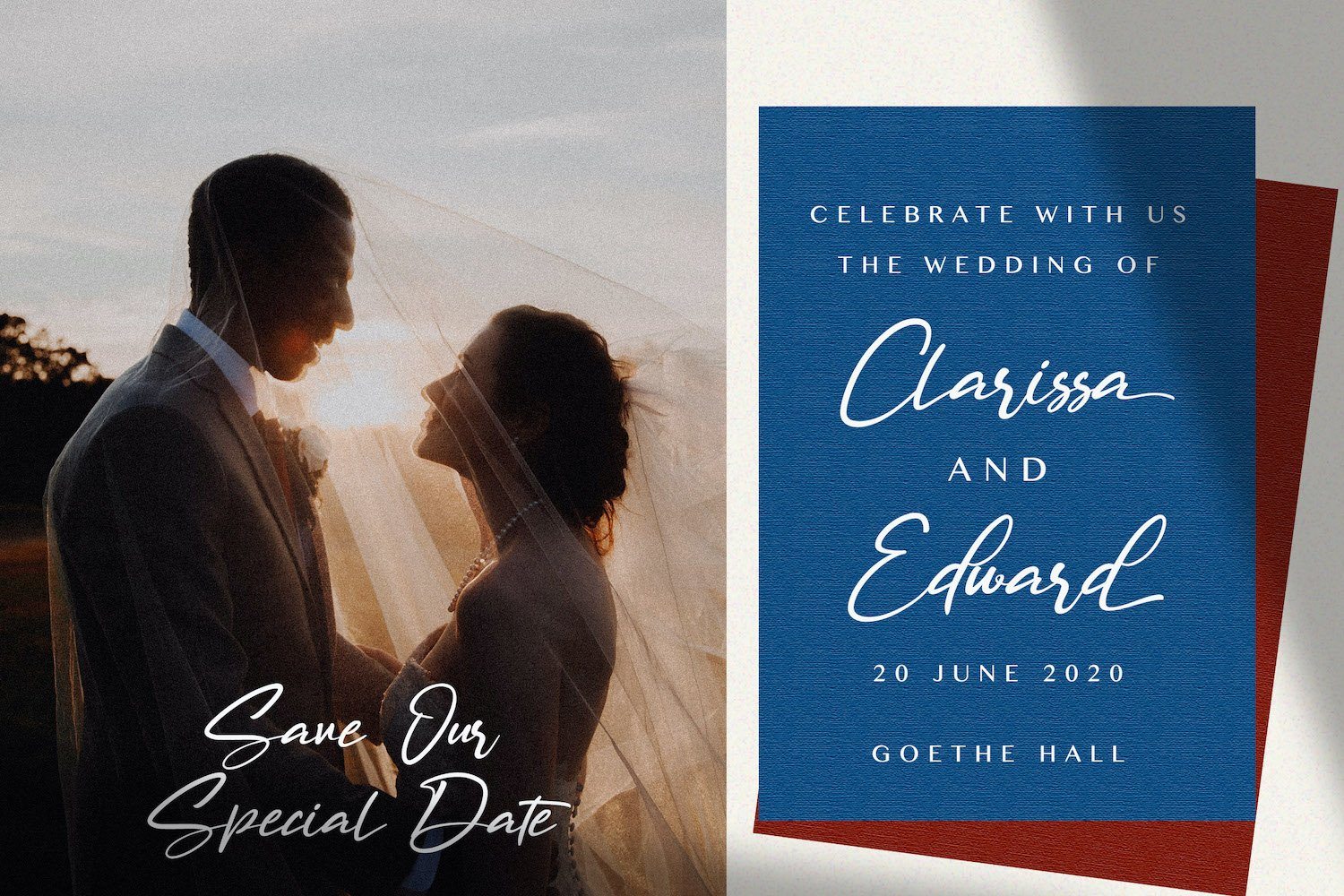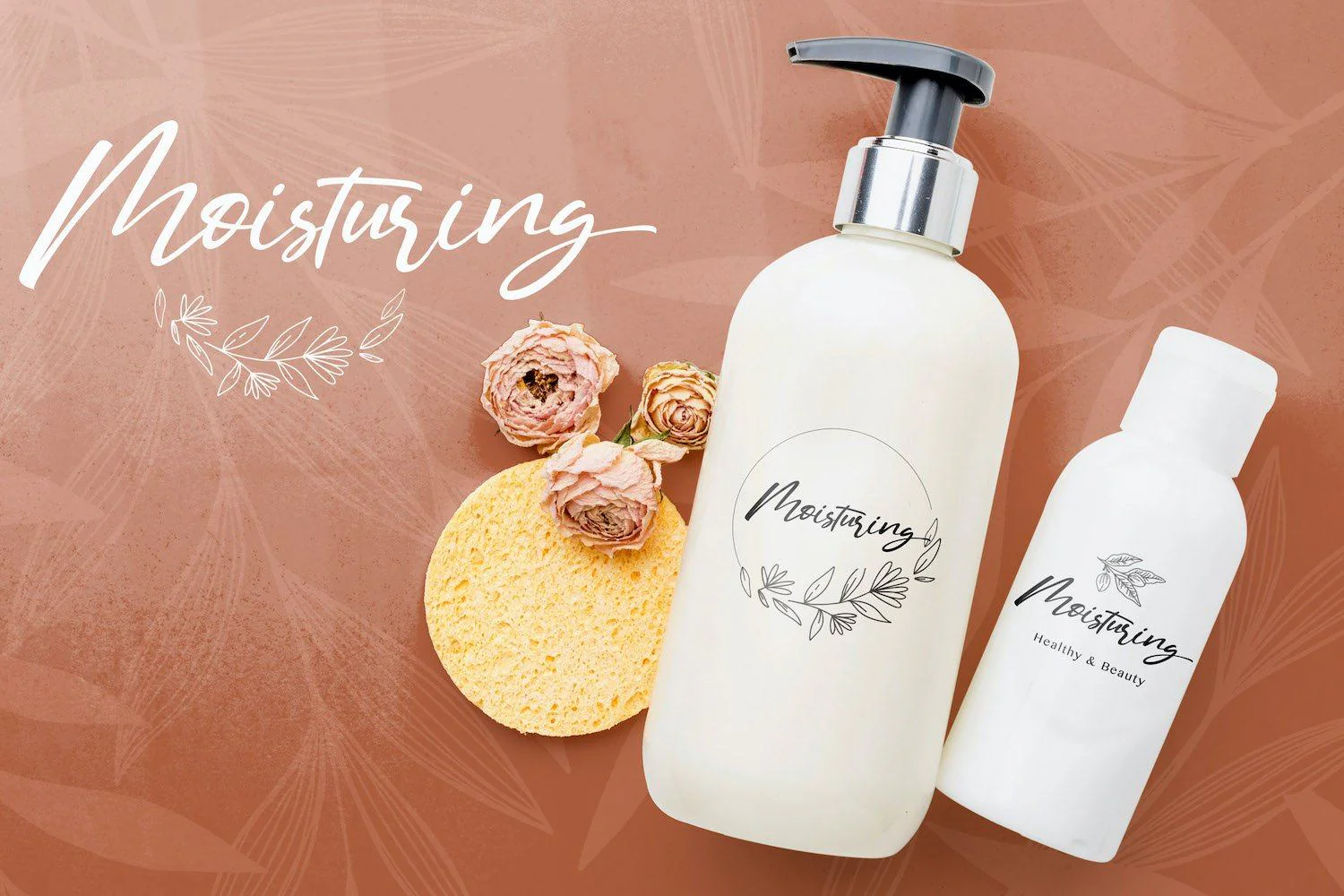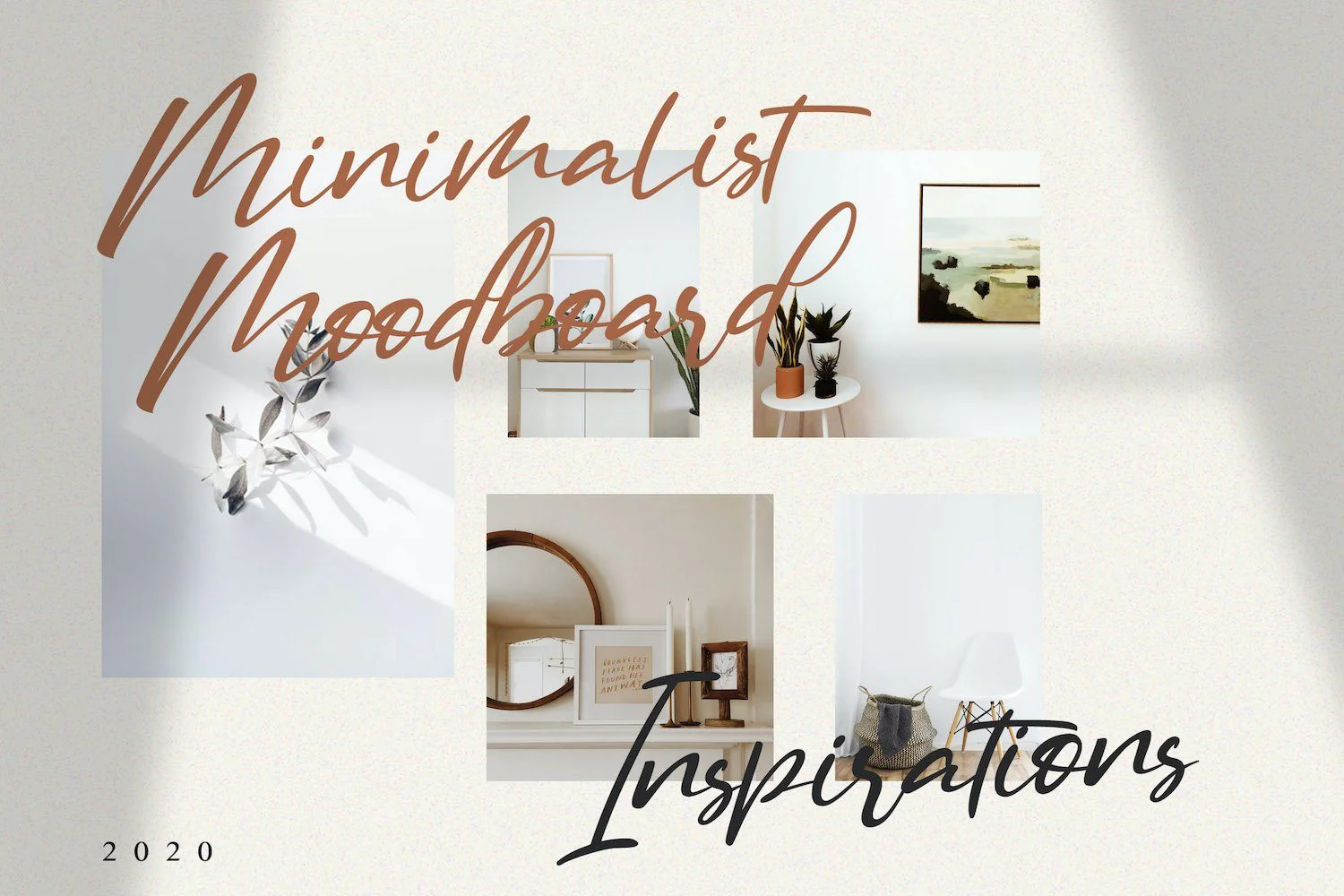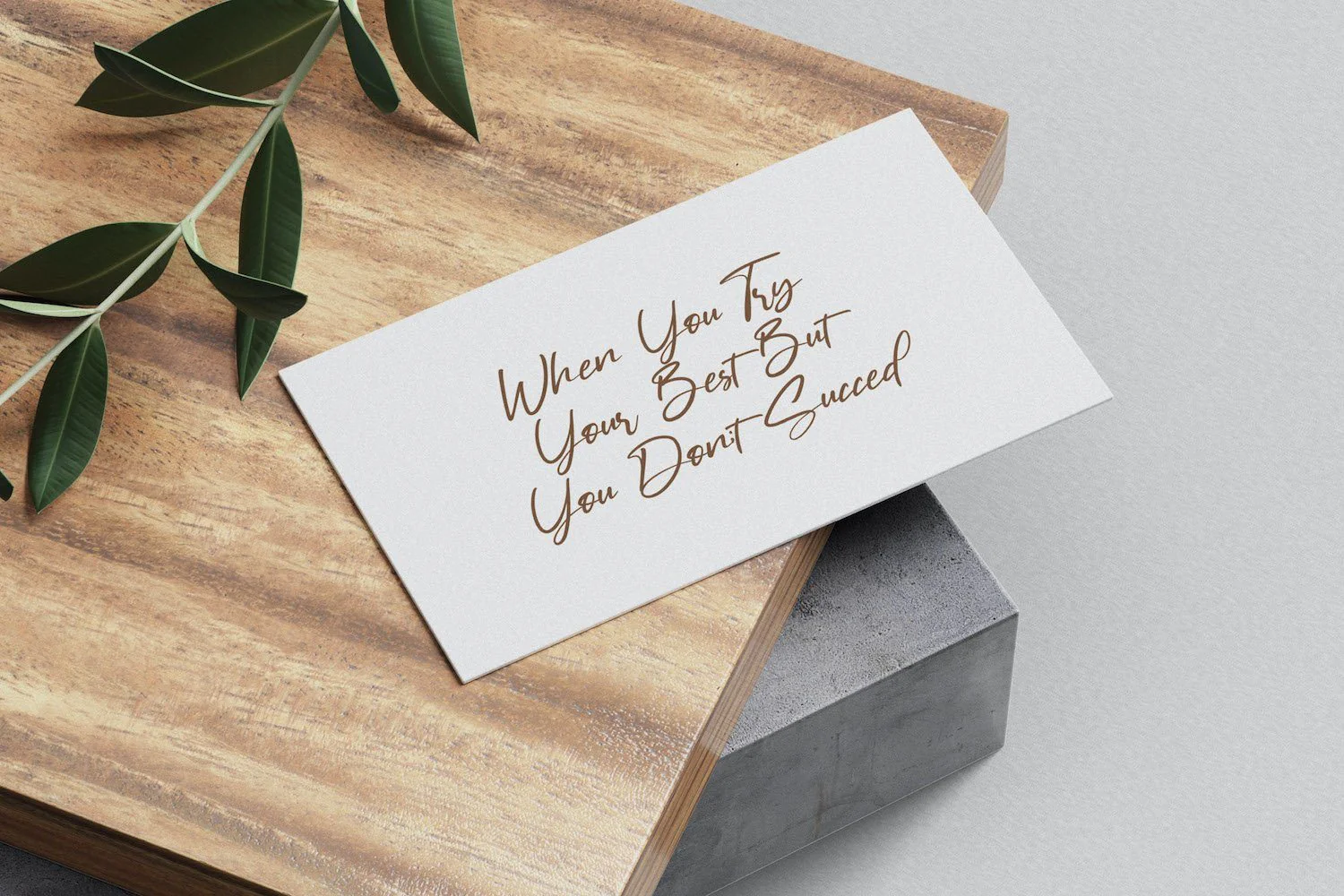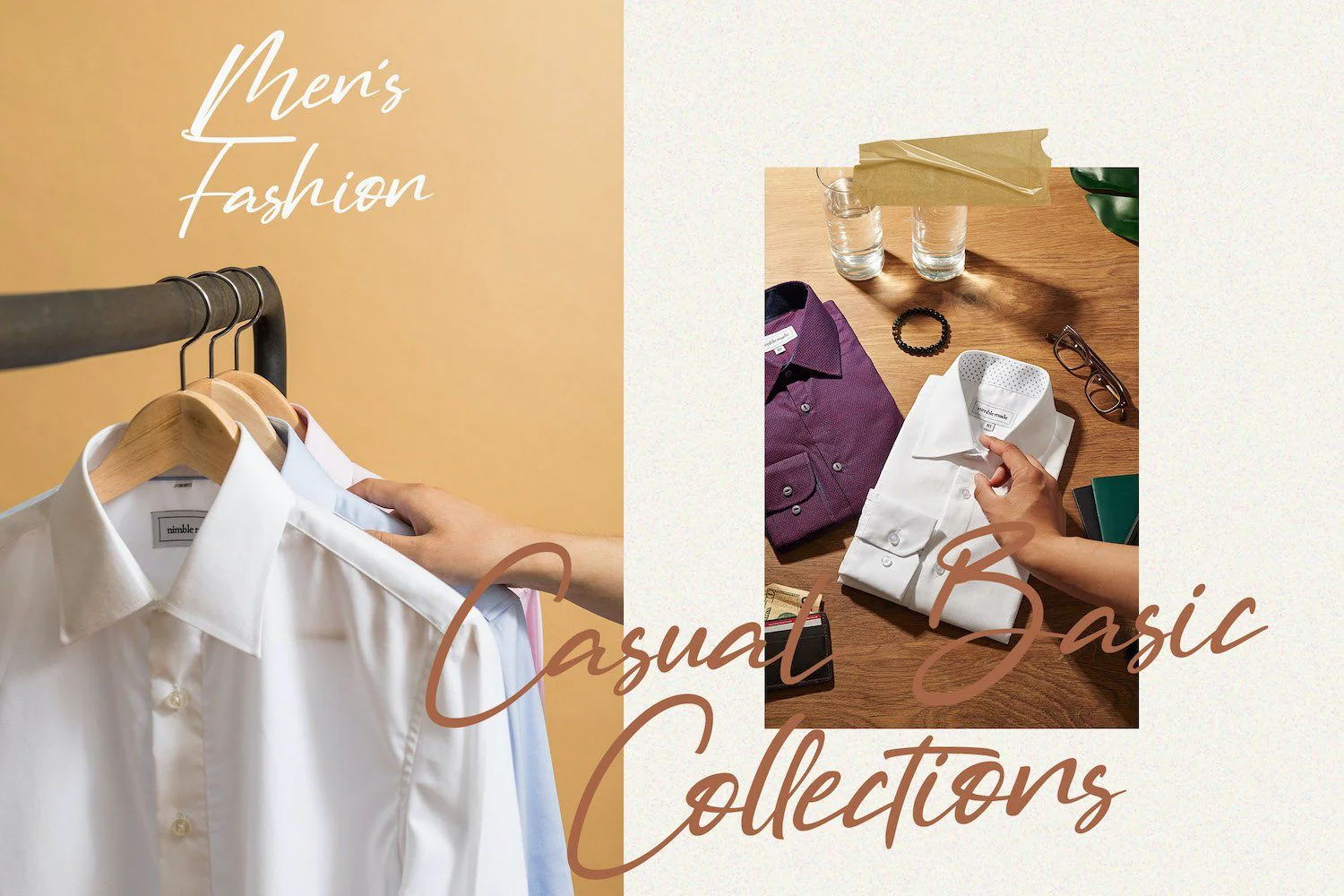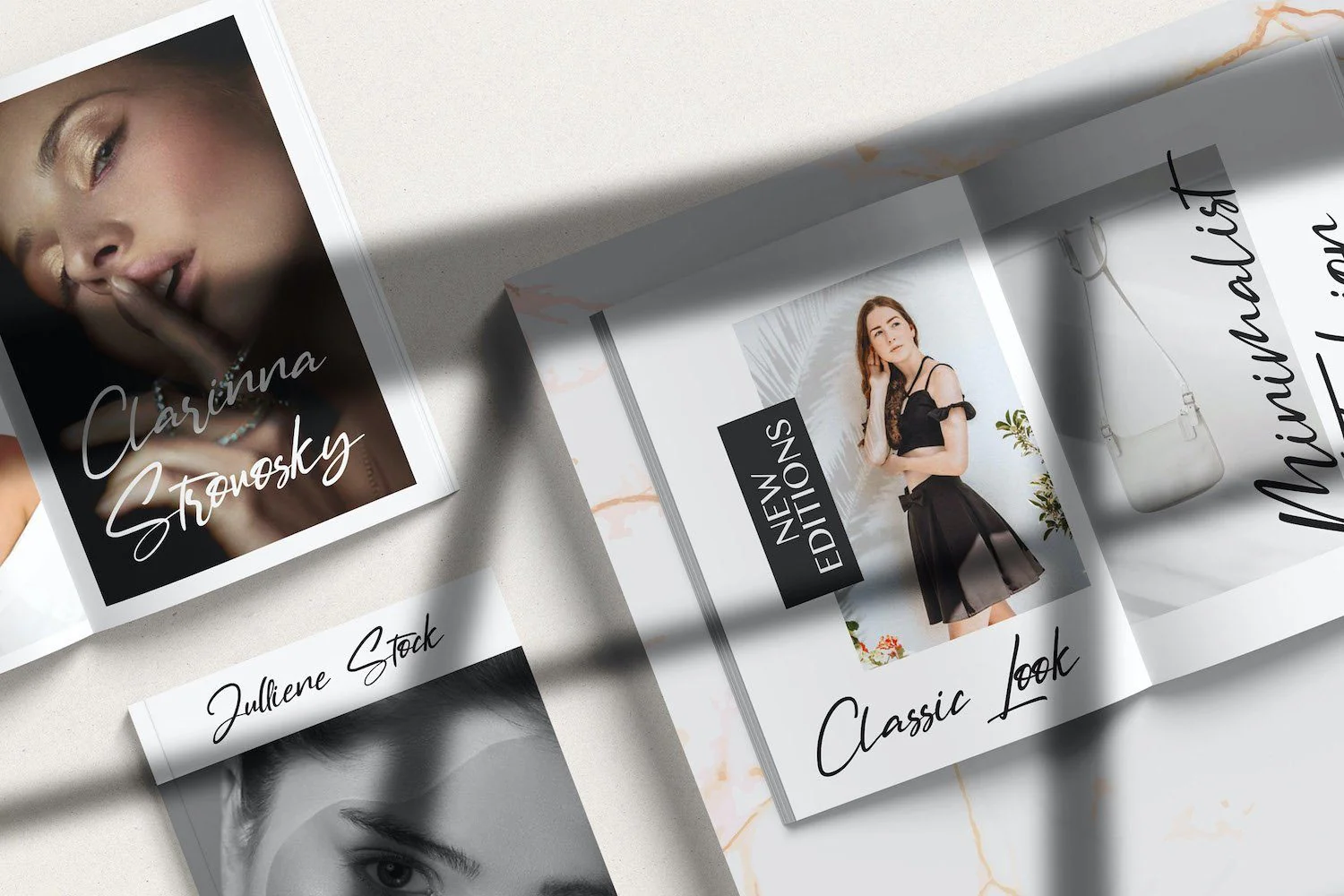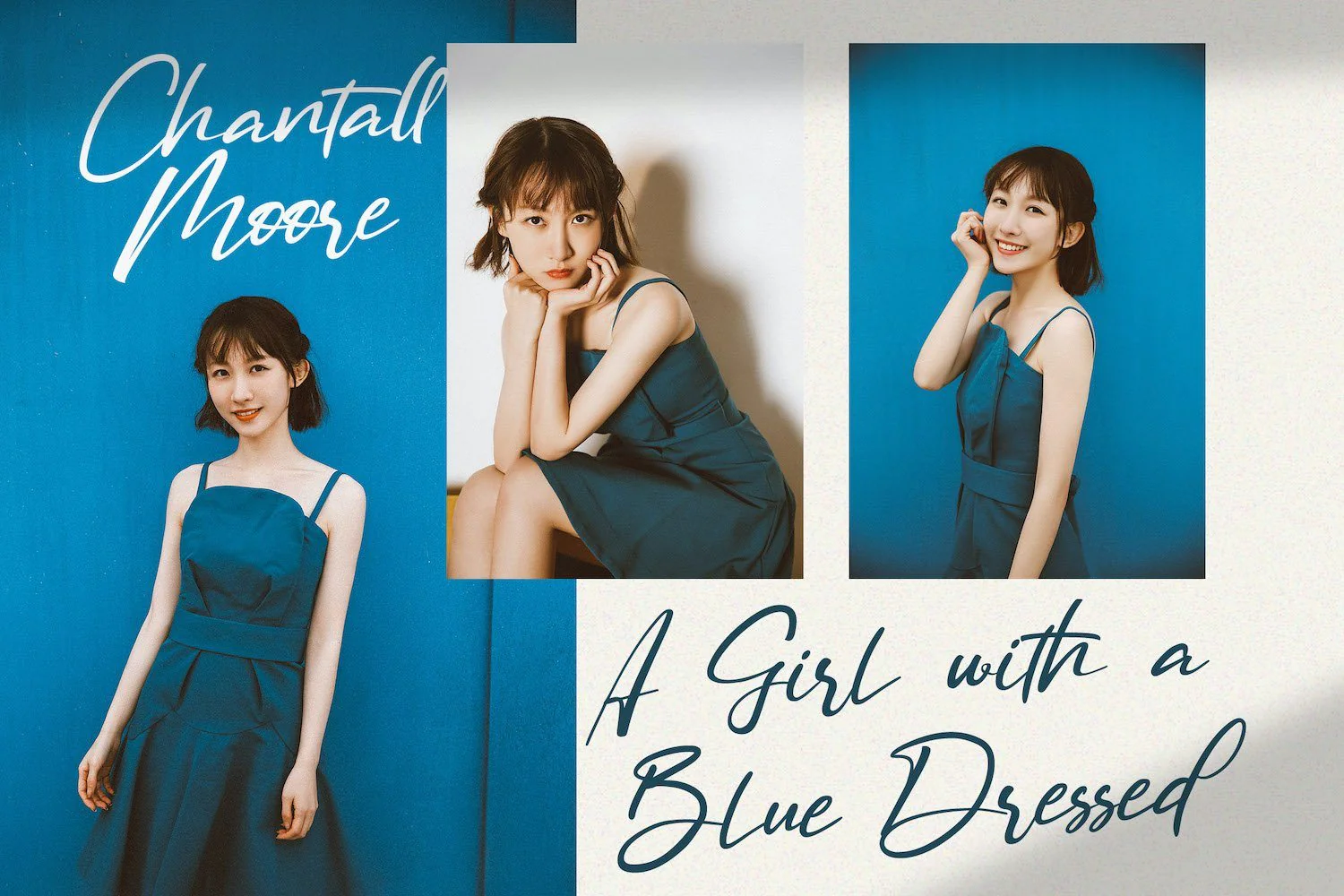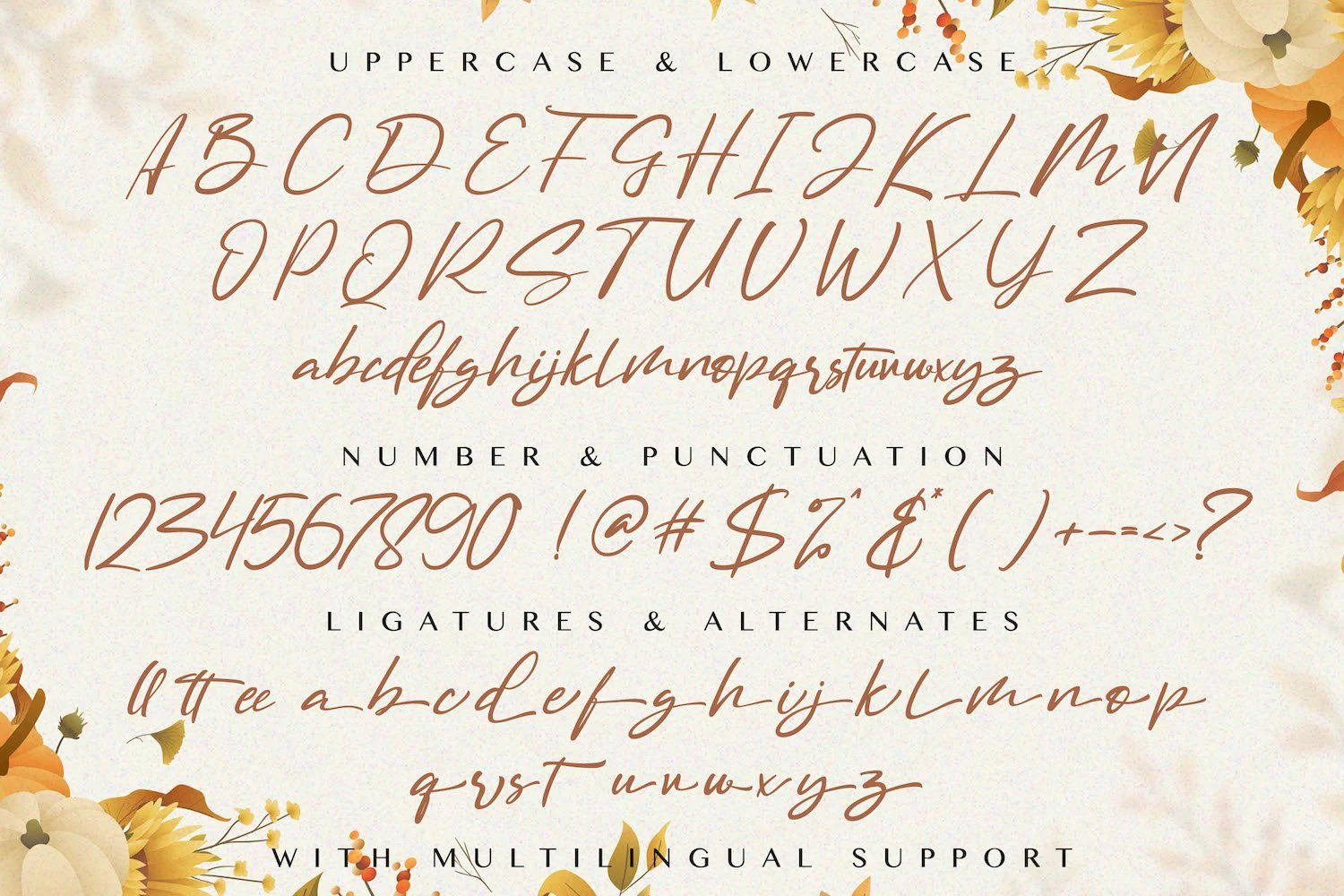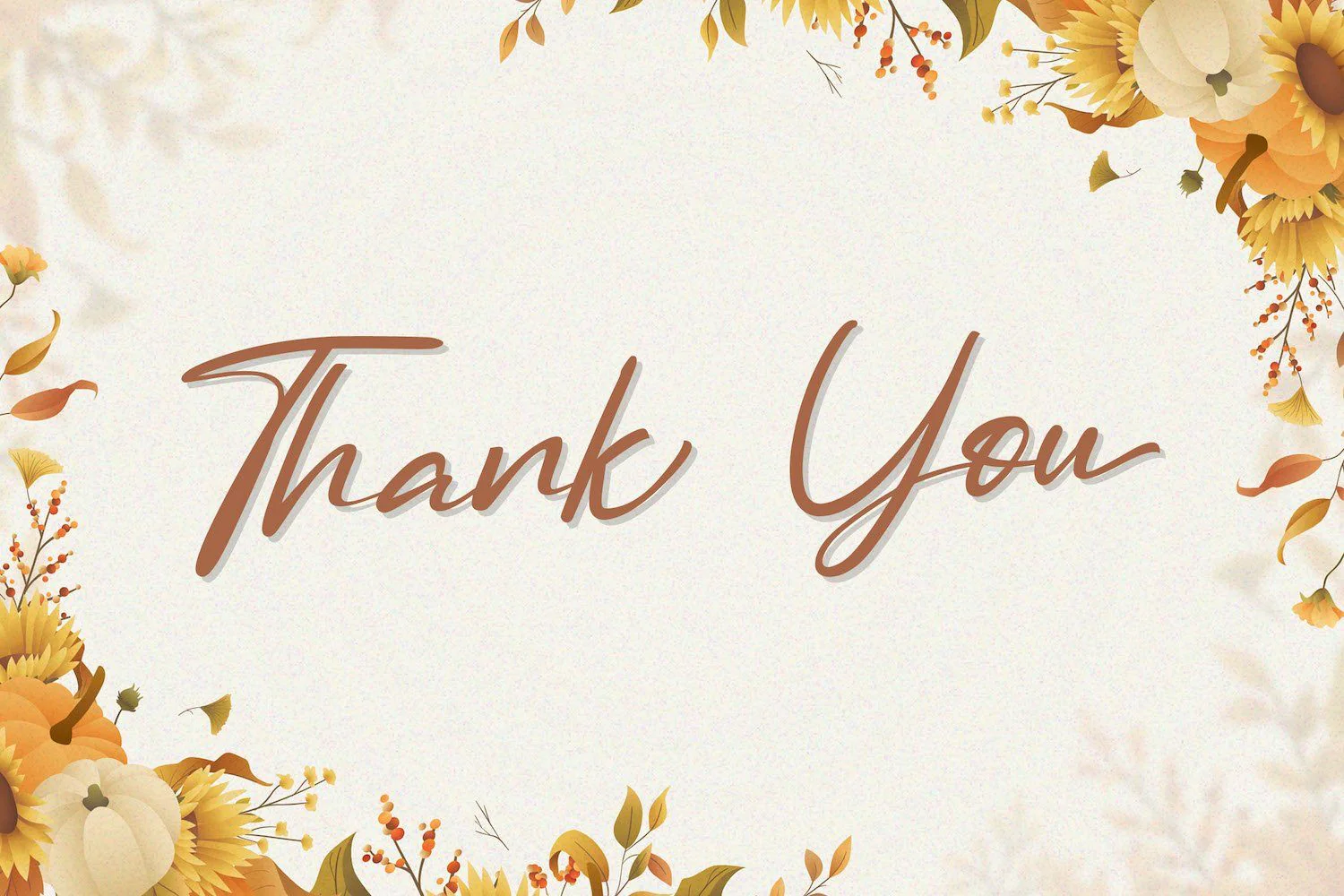
Marthina - Handwritten Font
Introducing Marthina - Handwritten Font
Marthina is a delicate, elegant and flowing handwritten font. It has beautiful and well balanced characters and as a result, it matches a wide pool of designs. Add it to your most creative ideas and notice how it makes them come alive!
Introducing Marthina - Handwritten Font
Marthina is a delicate, elegant and flowing handwritten font. It has beautiful and well balanced characters and as a result, it matches a wide pool of designs. Add it to your most creative ideas and notice how it makes them come alive!